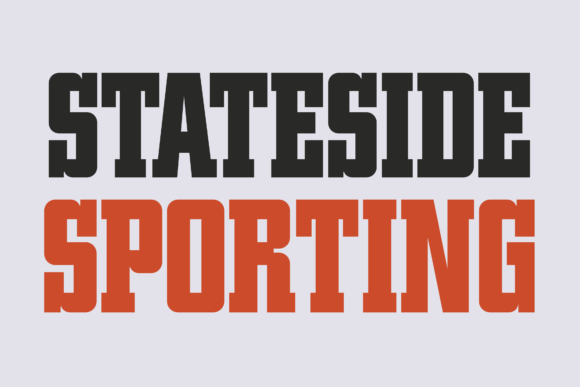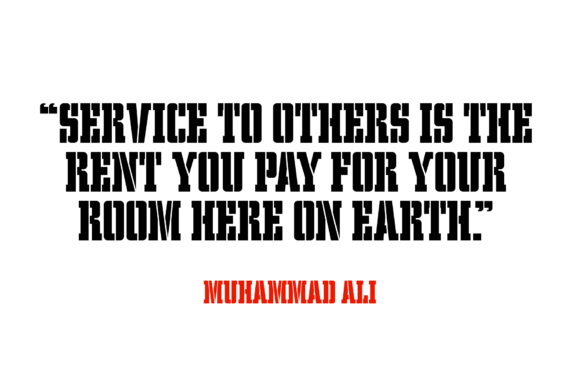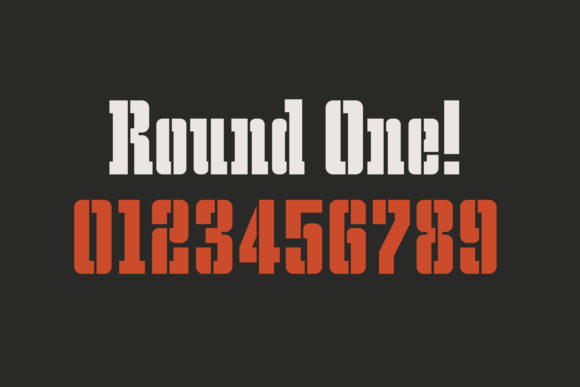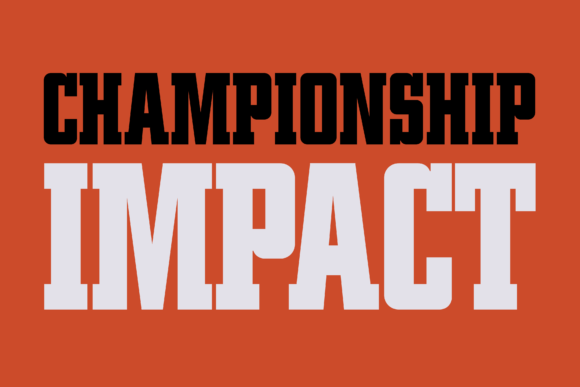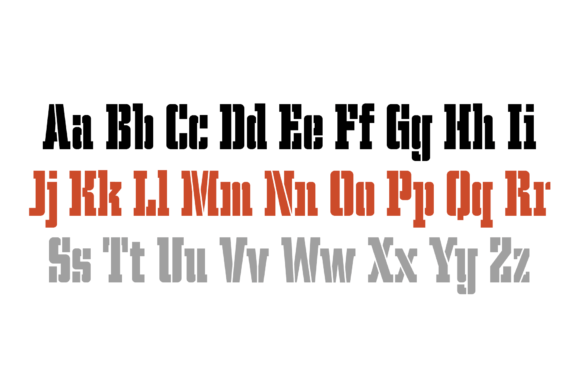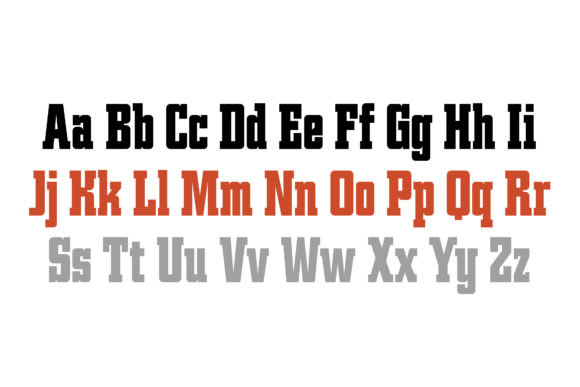
The Unstoppable Atletico Font: A Designer’s New Best Friend
I’ll never forget the time I was working on a sports event poster, struggling to find the perfect font to capture the energy and excitement of the game. My client wanted something bold, something that would grab attention and make a statement. That’s when I stumbled upon Atletico, a slab serif font that would change the game for me. In this article, I’ll share my experience with Atletico, its features, and how to make the most of it in your designs.
A First Impression: What I Love About Atletico
Atletico is a bold slab serif designed to be used as a high-impact display font. Here are some things I love about it:
- ✨ Perfect for sports events: Atletico’s bold and edgy design makes it perfect for sports-related projects, such as posters, flyers, and social media graphics.
- ✅ High-impact display font: This font is designed to grab attention and make a statement. Its bold design ensures that your text will stand out in any design.
- 💼 Versatile: Atletico can be used for a variety of projects, from posters and flyers to editorial work and branding.
While Atletico is an excellent font, there are a few things to keep in mind:
- 🤔 Legibility at small sizes: While Atletico is designed for display use, it can be a bit tricky to read at smaller sizes. Be sure to test it at different sizes to ensure it’s legible for your project.
- ⚠️ Limited use for body text: Due to its bold design, Atletico is not suitable for body text. It’s best used for headings, titles, or short phrases.
Alternatives to Atletico: 4 Fonts with a Similar Personality
If you like Atletico, you might also like these fonts:
- Rockwell: A classic slab serif font with a similar bold and edgy design.
- Clarendon: A elegant slab serif font with a sophisticated feel.
- Serifa: A modern slab serif font with a clean and minimalist design.
- Geo: A geometric sans-serif font with a similar industrial feel.
The Story Behind Atletico: Designer Inspiration
Atletico was designed with the sports enthusiast in mind. Its bold and edgy design is inspired by the energy and excitement of sports events. The font’s creator wanted to create a font that would capture the spirit of competition and teamwork.
| What is Atletico best used for? | Atletico is best used for high-impact display purposes, such as sports events, posters, and editorial work. |
| Is Atletico suitable for body text? | No, Atletico is not suitable for body text due to its bold design. It’s best used for headings, titles, or short phrases. |
| Is Atletico available in different weights? | Atletico is available in a single weight, but it can be used in combination with other fonts to create visual interest. |